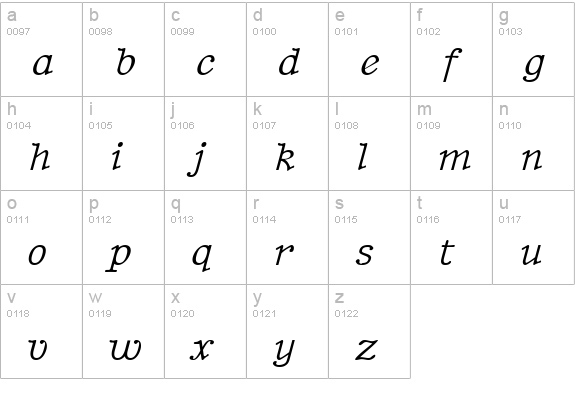
BetterTypeRight Italic is a distinctive, italic variant in the BetterTypeRight typeface family \xE2\x80\x94 well suited to design and typography projects.
Introducing BetterTypeRight Italic font - a sleek and modern typeface that exudes sophistication and elegance. The italicized design adds a touch of flair to any project, making it perfect for branding, advertising, and creative designs. The clean lines and stylish curves of BetterTypeRight Italic font give your text a polished and professional look that is sure to impress. What's even better? BetterTypeRight Italic font is available for free download at FontsMarket.com. That's right, you can enhance your designs with this stunning font without having to spend a dime. Whether you're working on a personal project or a client's design, BetterTypeRight Italic font is a versatile and eye-catching choice that will elevate your work to the next level. Download it today and start creating beautifully designed visuals that stand out from the crowd.